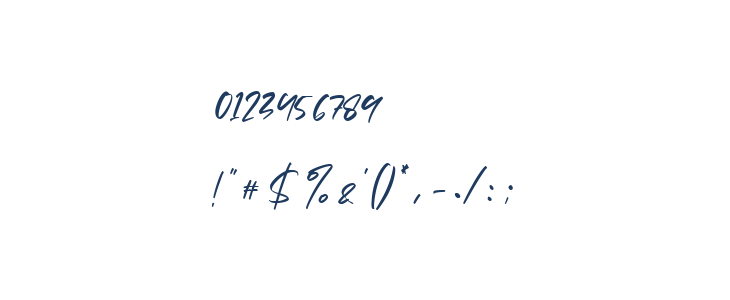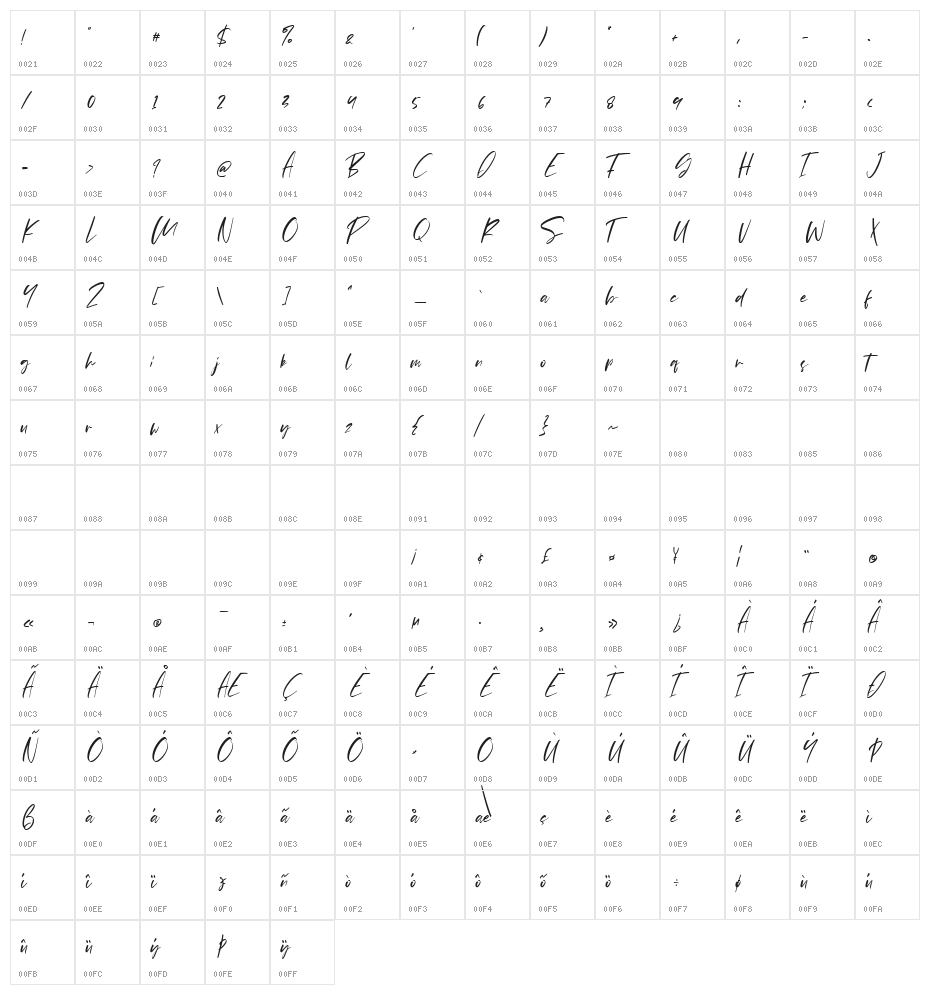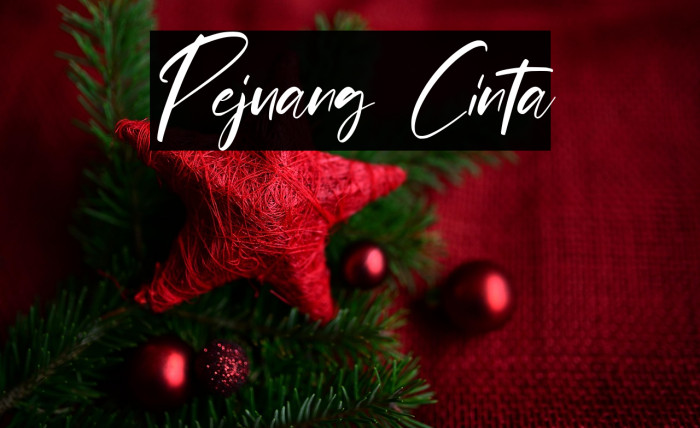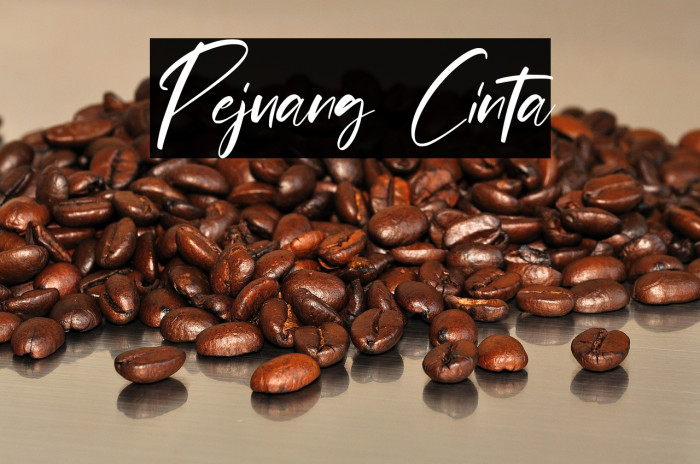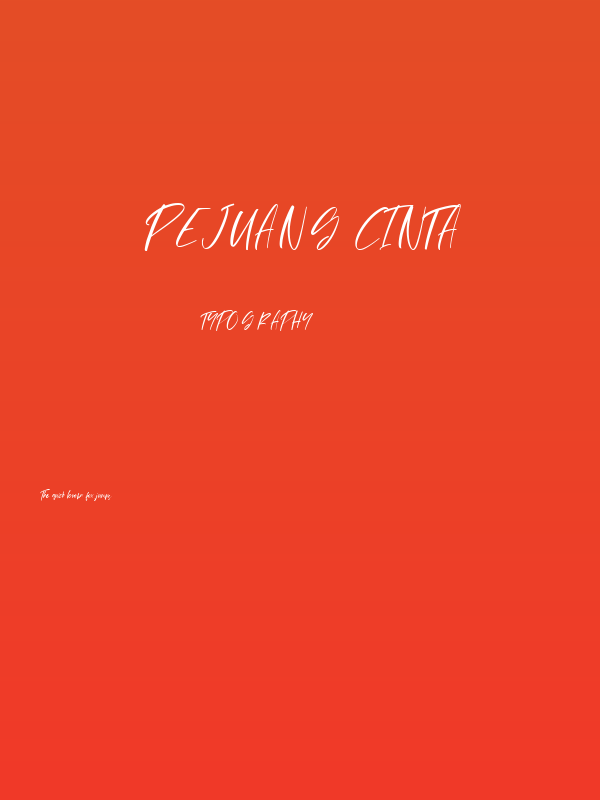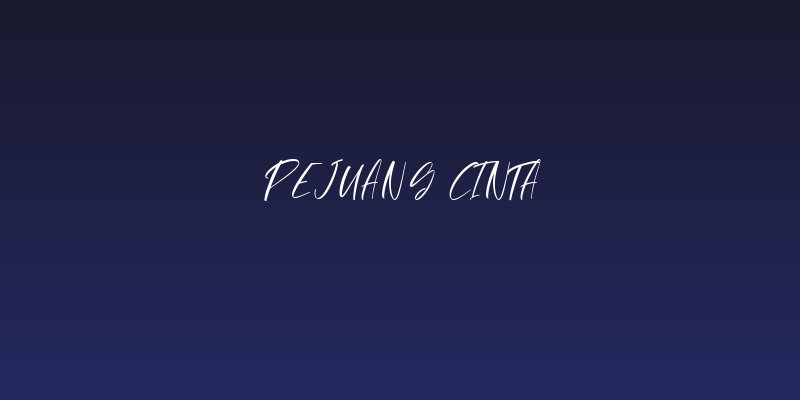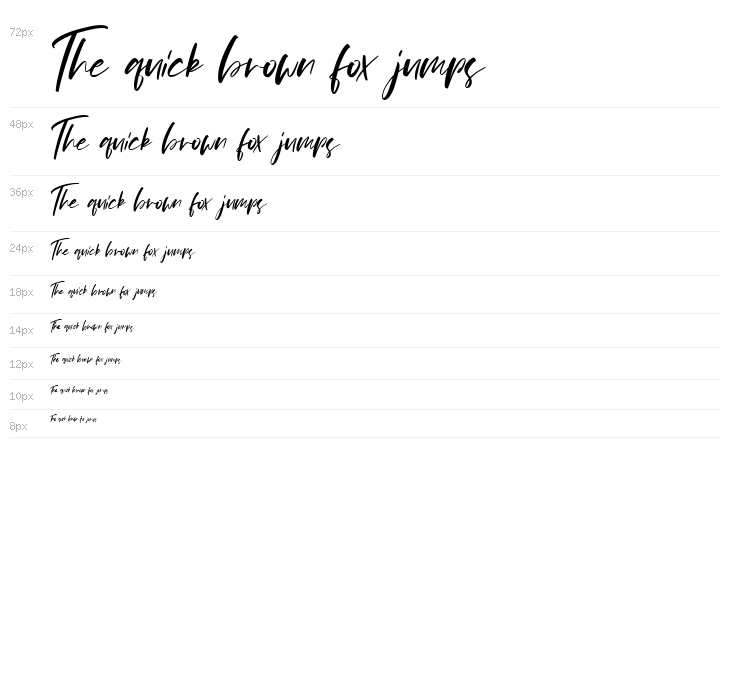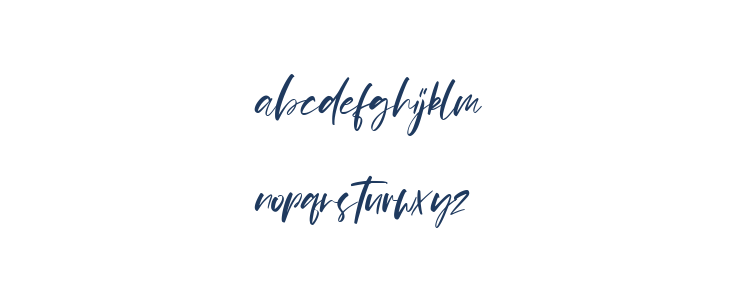
Pejuang Cinta Font
Pejuang Cinta Description
This font exudes a dynamic and expressive style, characterized by its fluid, handwritten appearance. The letters are crafted with a natural, flowing motion, giving it an energetic and personal touch. The strokes vary in thickness, adding a sense of movement and rhythm to the text. The uppercase letters are bold and prominent, while the lowercase letters maintain a consistent flow, enhancing readability. The numbers and special characters are designed with the same lively flair, ensuring a cohesive look across all elements. This font is ideal for projects that require a personal, artistic touch, such as invitations, branding, and creative posters.